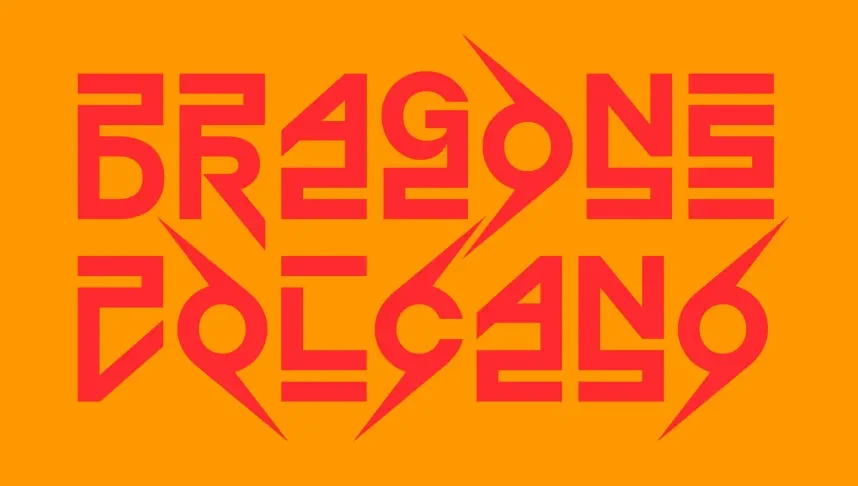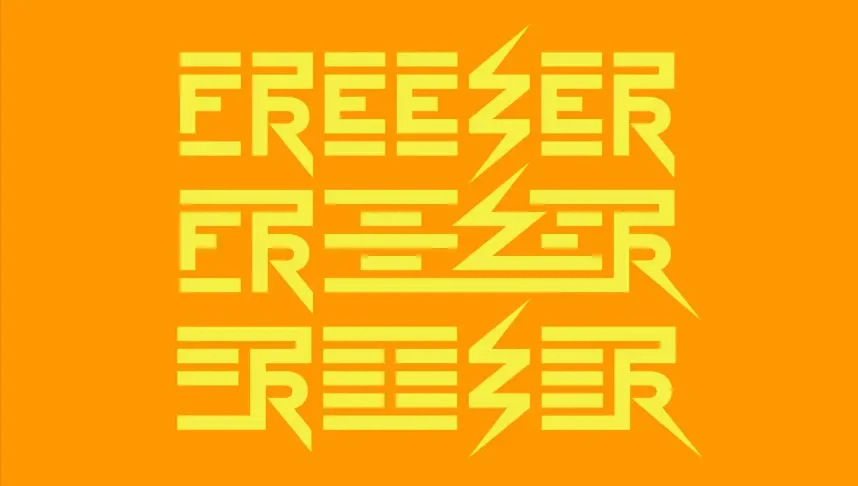
Krsna Font is a decorative display typeface developed for expressive typography in branding, posters, and themed designs. Designers often face challenges combining cultural character with readable lettering for short text applications.
Krsna features stylized letterforms with distinct curves, varying stroke widths, and decorative details. The font emphasizes character shape over simplicity, which limits its use to headlines, logos, and short phrases. Spacing and proportions are designed for visual balance rather than long paragraphs.